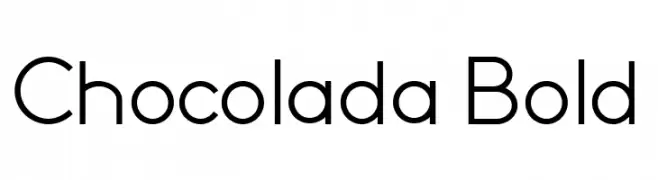
A clean, geometric font with a modern and minimalistic style.
Среди последних фаворитов — Chocolada Bold, Chocolada Bold Italic, Chocolada Regular and Maskesa Regular. Они сочетают ясность и индивидуальность, хорошо подходят для тех‑брендов, редакционных макетов и социальных визуалов.